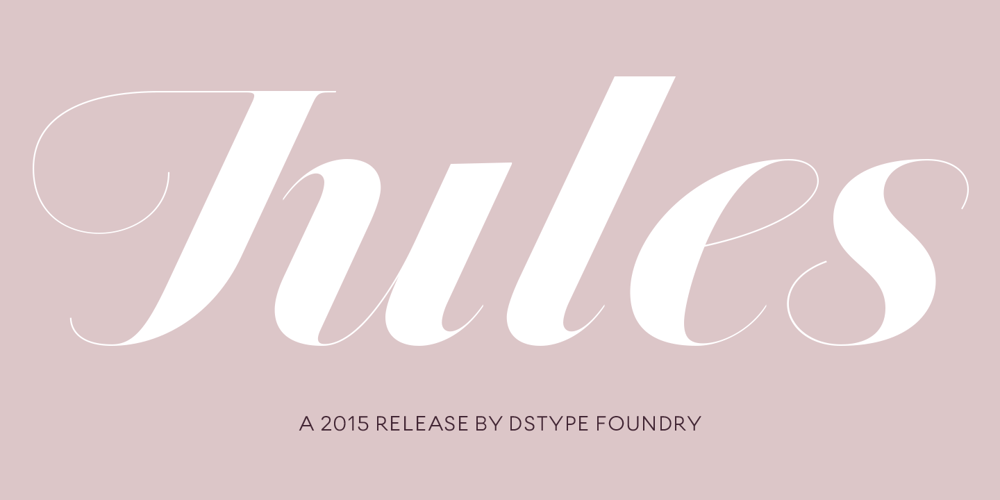
Jules
Jules font
Jules Font Family was designed by Dino dos Santos, Pedro Leal and published by Monotype. Jules contains 45 styles and family package options. At first glance, Jules, appears to be just one more Didonic variation, but a closer look starts revealing all the extraordinary features of this type family, specially designed for use in extremely big sizes. Jules reflect the last of the late 18th century and was inspired by several plates from a portuguese calligrapher named Antonio Jacintho de Araujo. Available in three different optical sizes: Big, Colossal and Epic, Jules has a plethora of ligatures and stylistic alternates, plus refined Italics and a super elegant Swashes version.